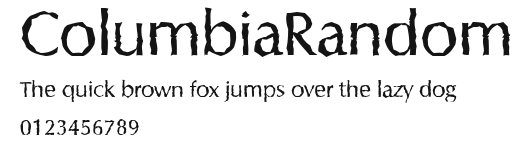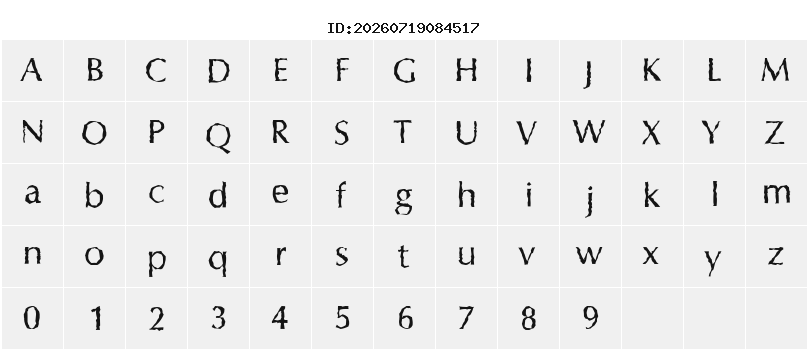
• Font Name: ColumbiaRandom
• Designer: SoftMaker Software GmbH
About ColumbiaRandom.ttf
ColumbiaRandom.ttf is a modern, elegant sans-serif font designed for ultimate readability and visual harmony. Perfect for branding, headlines, web design, and print materials.